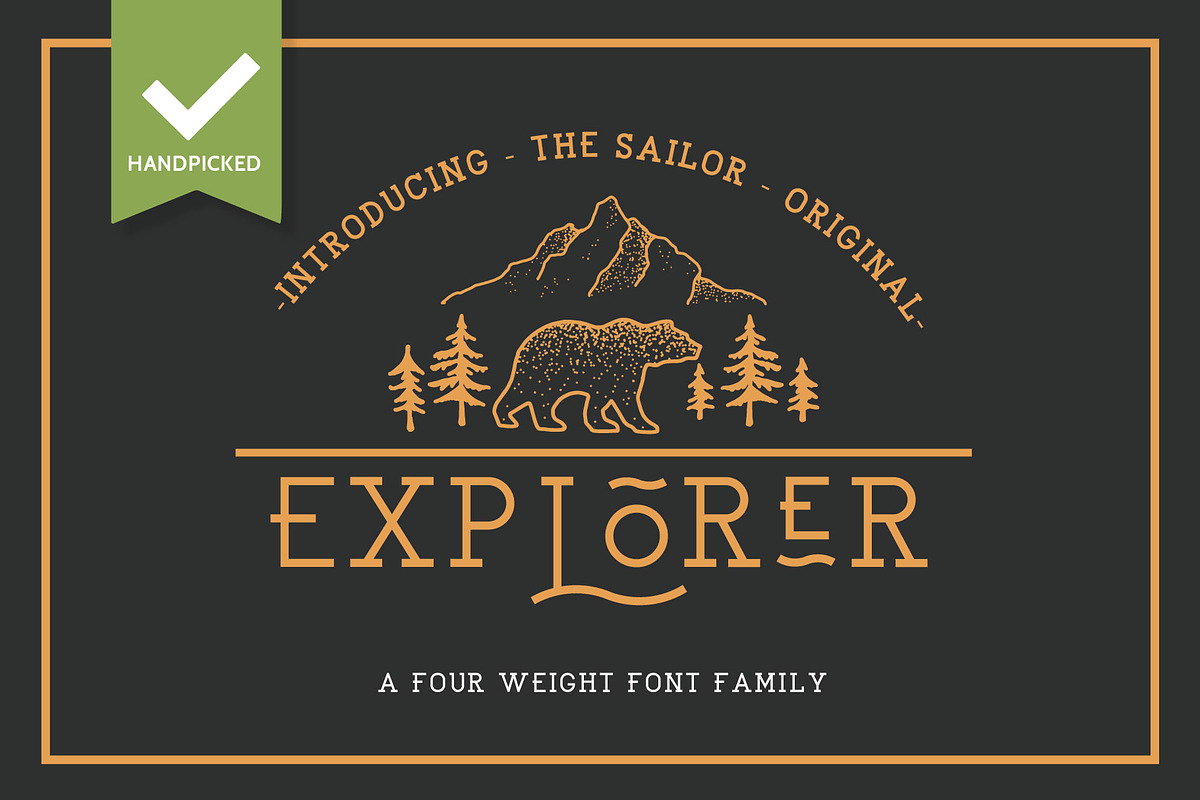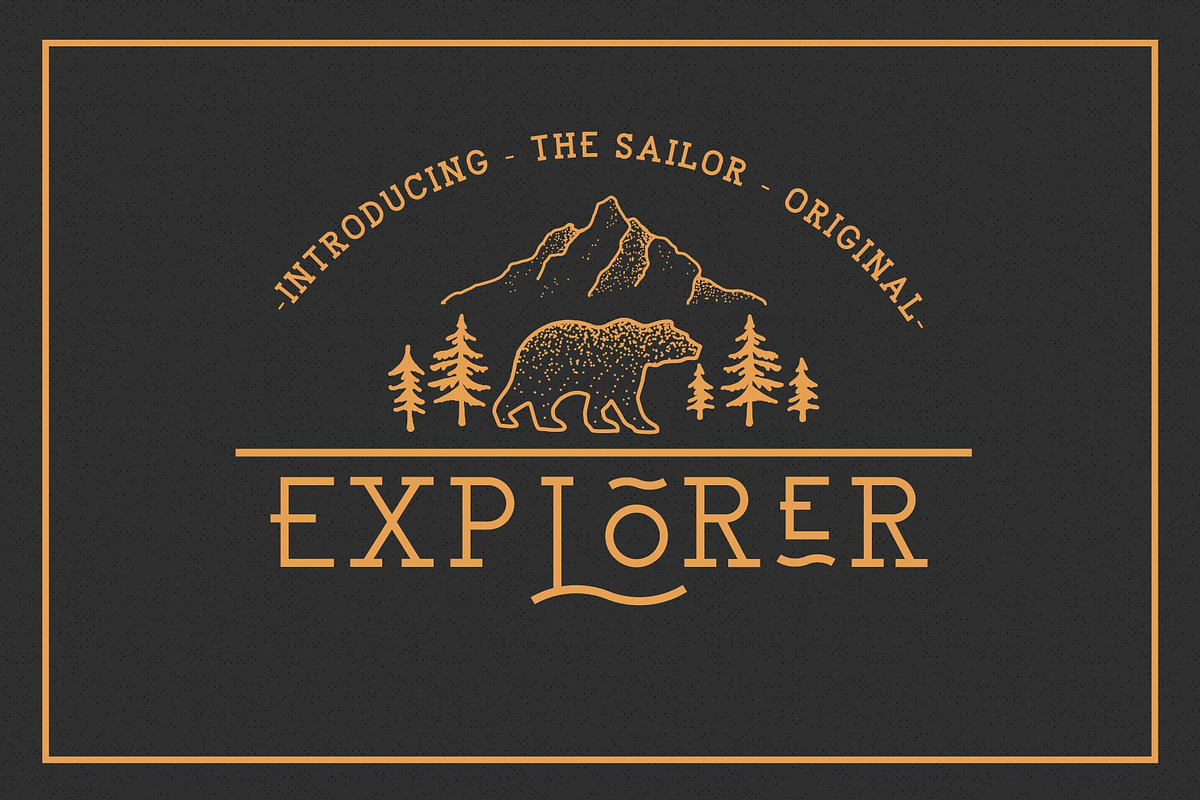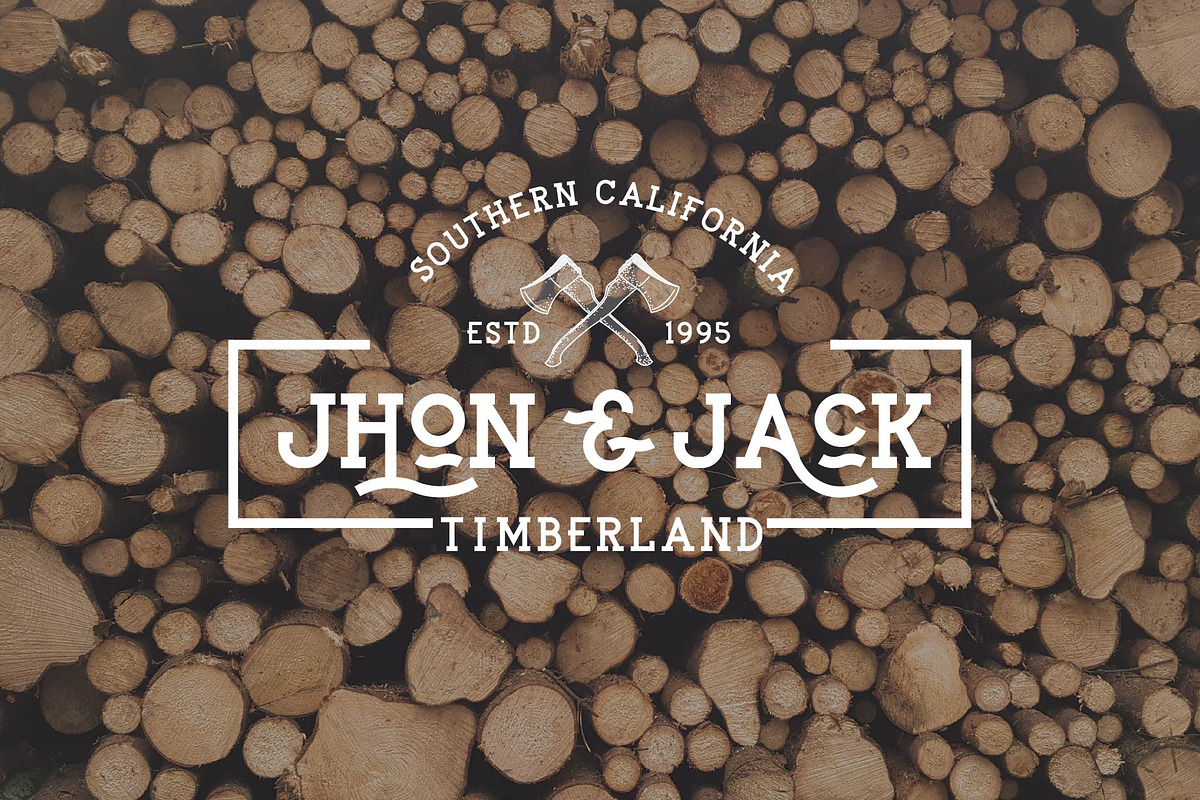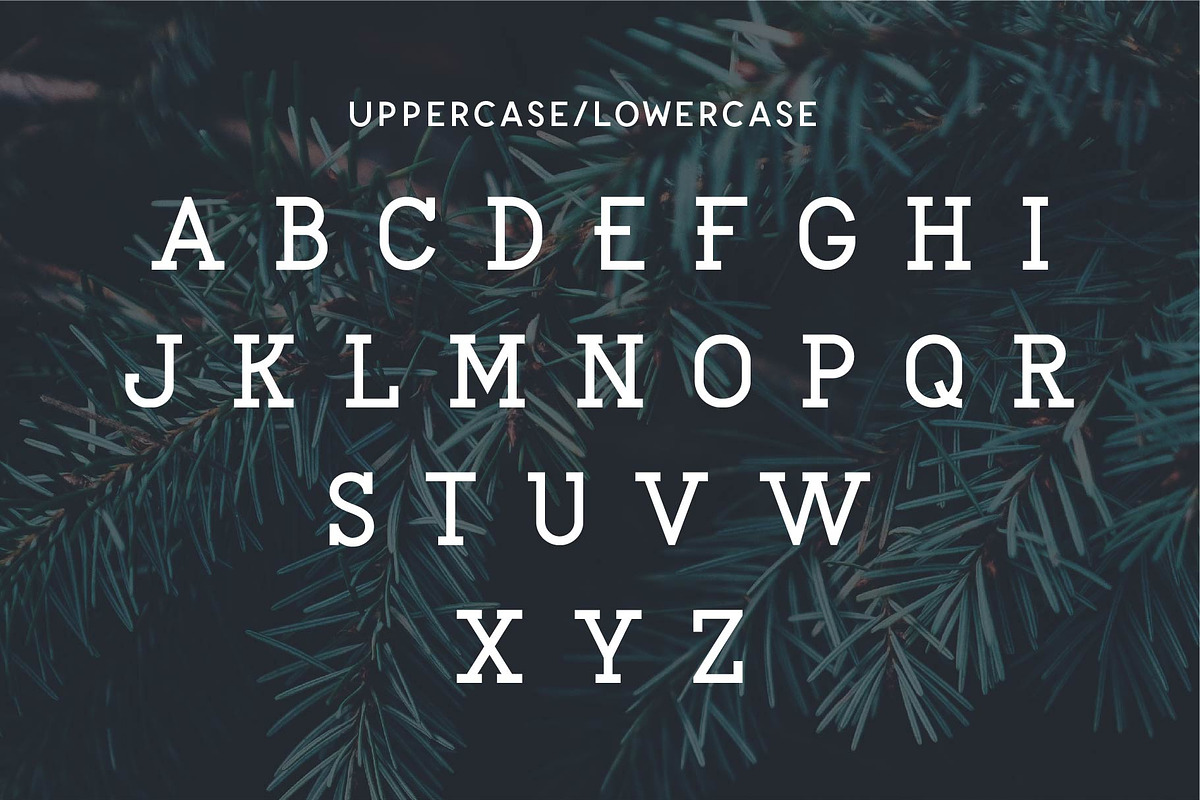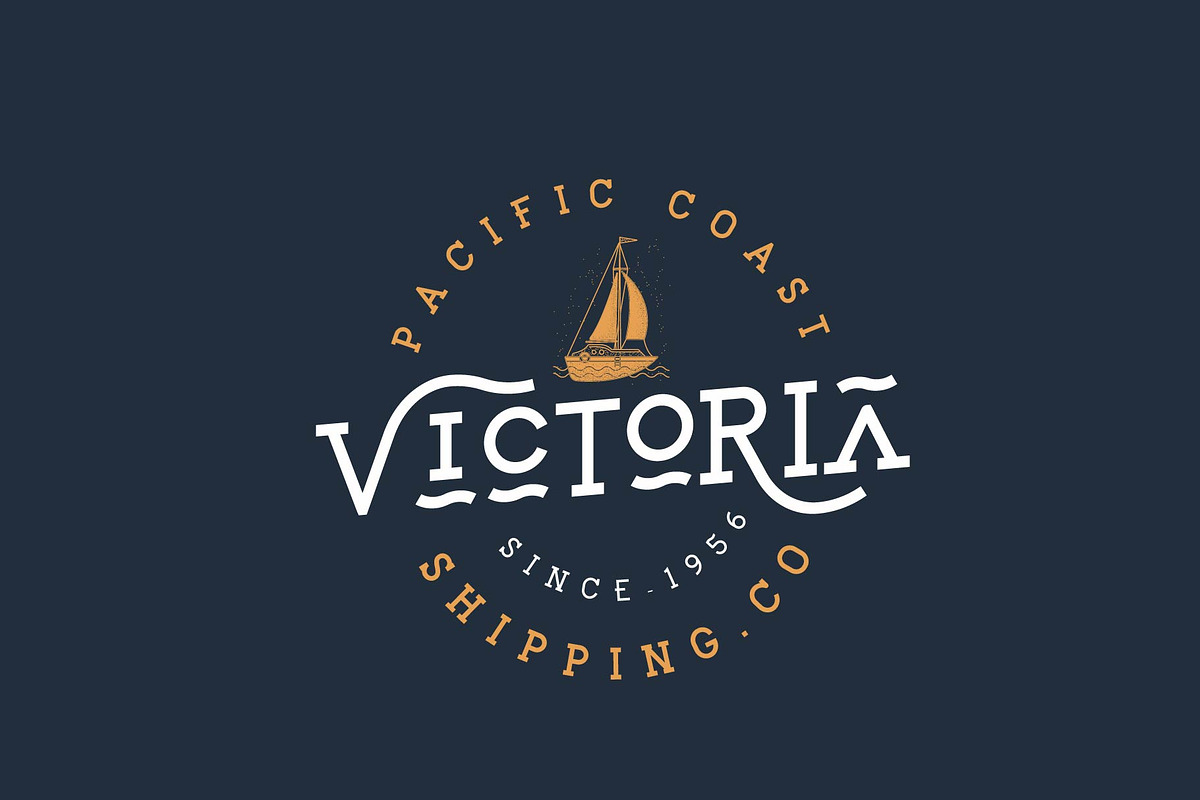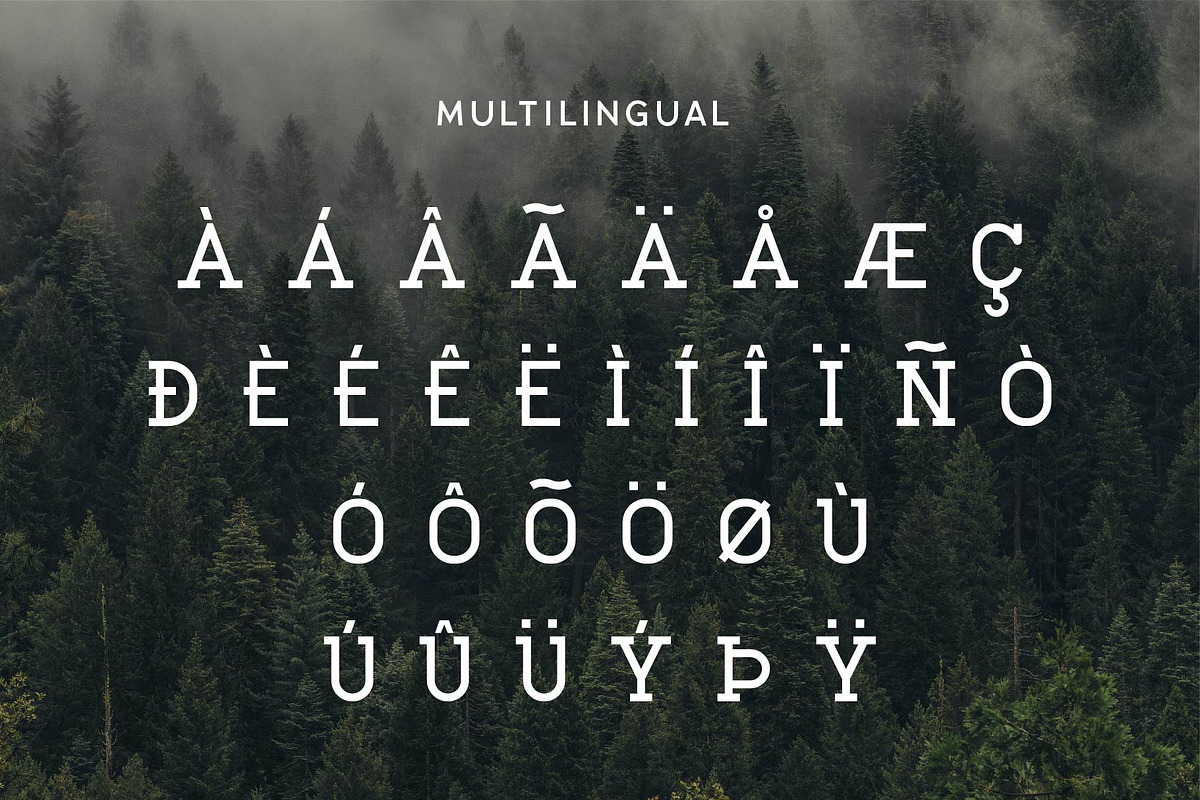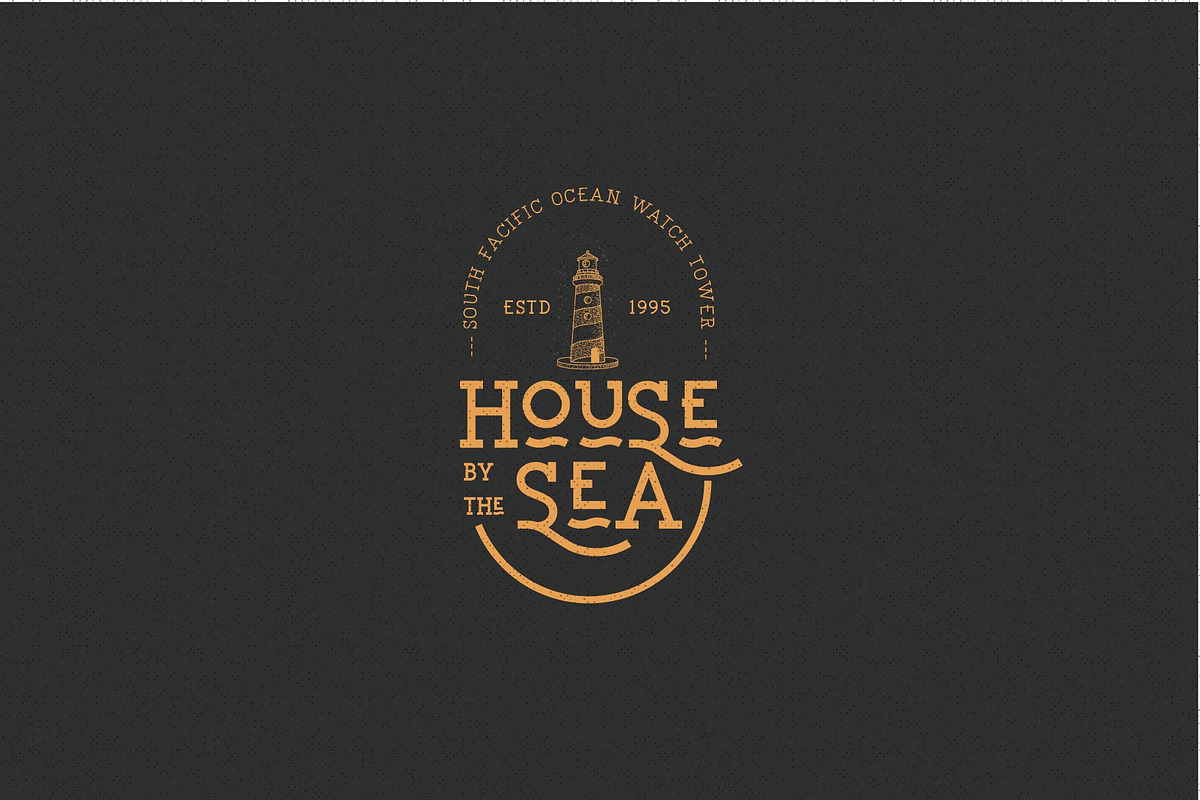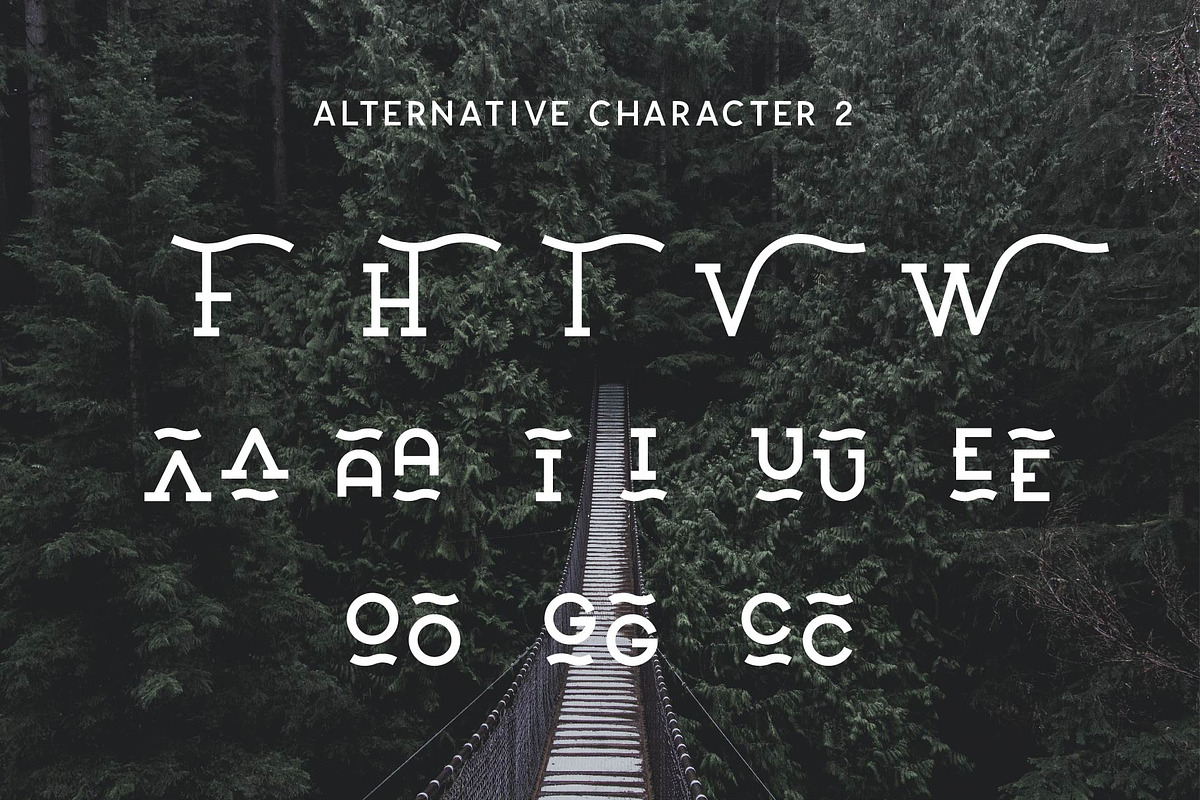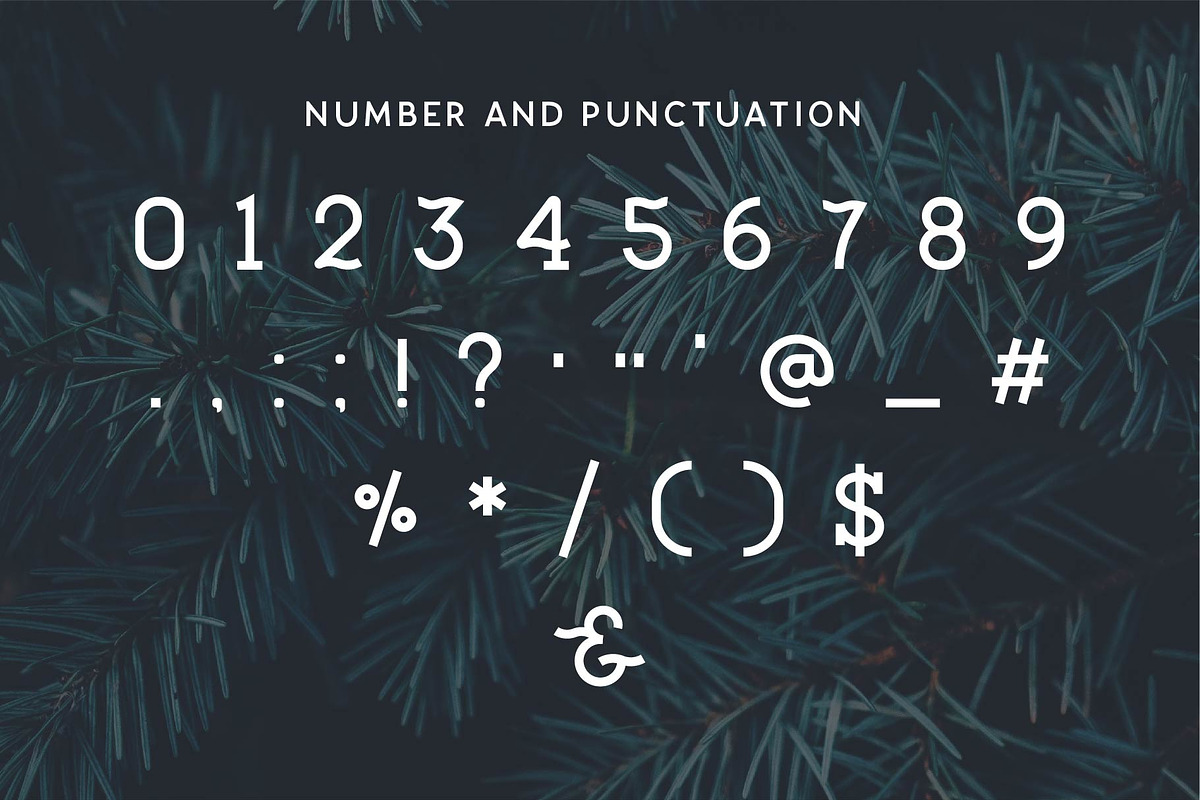
EXPLORER - Sailor Original Typeface
The Sailor Original Font Is a another version of the sailor font. This Original version comes with clean style, modern and simple with Four weight . Perfect for logo designs, headers and small amounts of text. It contains an uppercase alphabet with alternative character, numbers and symbols.
- Four weight
- Light
- Medium
- Bold
Multiple Language supported